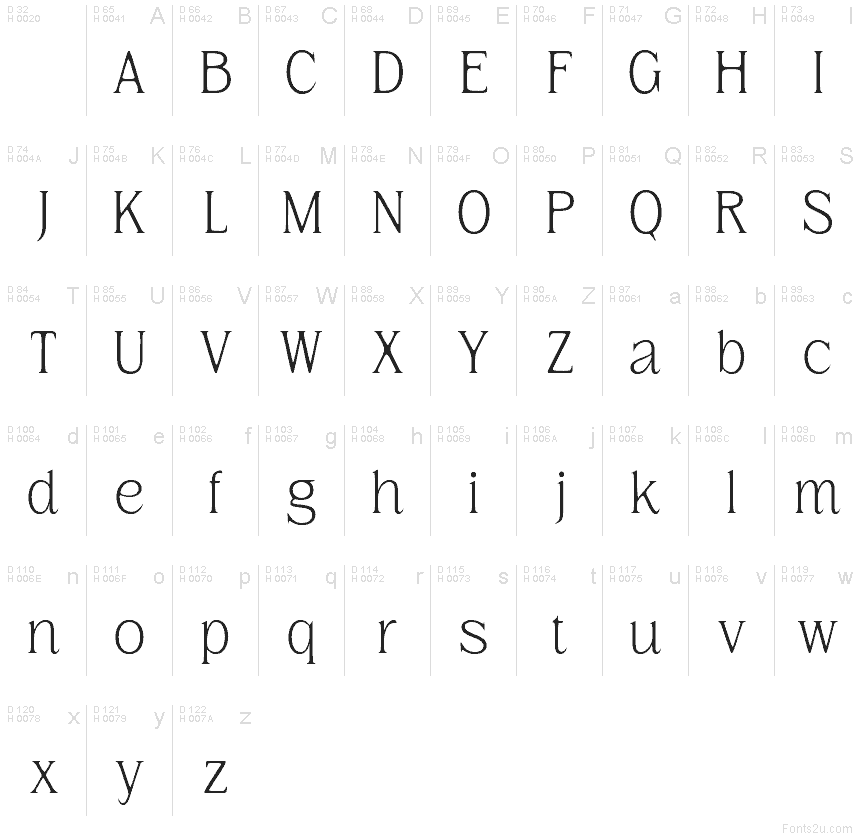
CSLucienDrawn-Regular Demo
CS Lucien Drawn font by Craft Supply Co. is a light serif free font with a traditional yet elegant design. It features a sophisticated and refined look that will complement the readability of texts and increase viewers’ engagement.
Use CS Lucien Drawn for your editorial project, book covers, magazines, newspapers typography, packaging designs, especially for luxurious products; titles and headlines are another option.